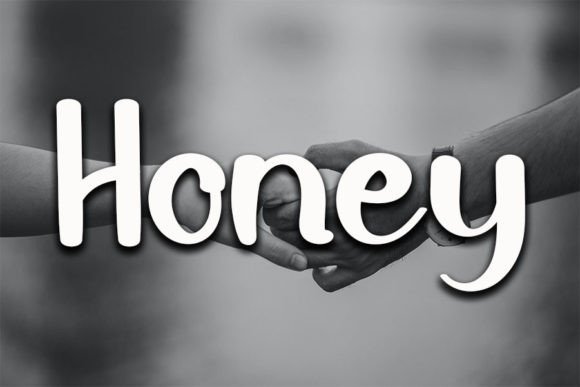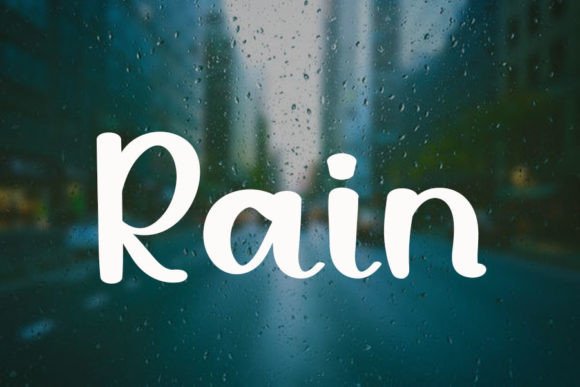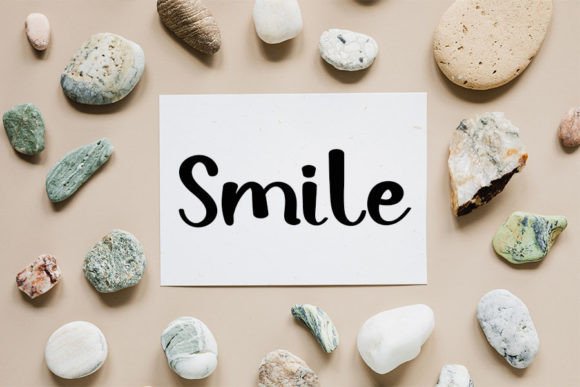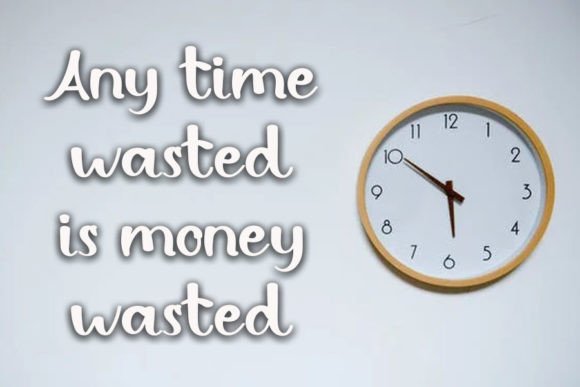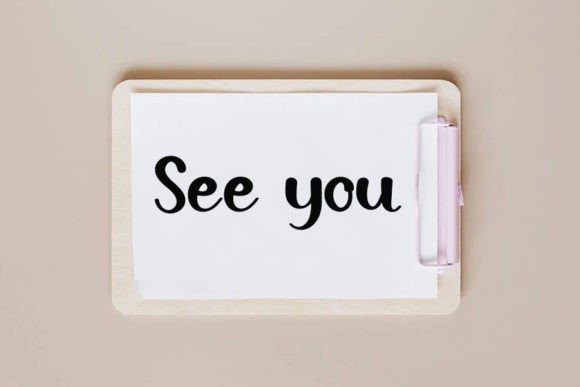
Baby Font: The Magical Handwritten Font for Elegant Designs
Are you a designer or crafter looking for a unique and elegant font to elevate your creative projects? Look no further than Baby Font, a magical handwritten font that combines cleanliness and quirkiness. In this article, we’ll dive into the world of Baby Font, exploring its features, benefits, and uses, as well as provide tips on how to make the most of this versatile font.
What is Baby Font?
Baby Font is a carefully crafted handwritten font that exudes elegance and sophistication. Its clean lines and subtle quirks make it the perfect fit for a wide range of design projects, from logos and branding to social media graphics and crafty DIY projects. Whether you’re a professional designer or a DIY enthusiast, Baby Font is sure to captivate your audience with its unique charm.
Key Features of Baby Font
- Magical Handwritten Style: Baby Font boasts a beautiful, handwritten style that’s perfect for creating personalized and eye-catching designs.
- Elegant and Clean: The font’s clean lines and elegant curves make it suitable for a wide range of design applications, from formal to informal.
- Quirky and Unique: Baby Font’s subtle quirks and imperfections add a touch of whimsy and personality to your designs.
- Highly Versatile: This font is perfect for various design projects, including logos, branding, social media graphics, and crafty DIY projects.
Benefits of Using Baby Font
So, why choose Baby Font for your design projects? Here are just a few benefits of using this amazing font:
- Stand Out from the Crowd: Baby Font’s unique style ensures that your designs will stand out from the competition and capture your audience’s attention.
- Easy to Read: The font’s clean lines and clear typography make it easy to read, even at small sizes.
- Customizable: Baby Font is highly customizable, allowing you to adjust the font size, color, and style to suit your design needs.
- Time-Saving: With Baby Font, you can create professional-looking designs in no time, saving you time and effort.
Using Baby Font in Design Projects
So, how can you use Baby Font in your design projects? Here are a few ideas to get you started:
- Logos and Branding: Use Baby Font to create a unique and memorable logo that reflects your brand’s personality.
- Social Media Graphics: Add a touch of elegance and whimsy to your social media graphics, including Facebook posts, Instagram stories, and Twitter headers.
- Crafty DIY Projects: Use Baby Font to add a personal touch to your crafty DIY projects, such as handmade cards, gift tags, and scrapbook pages.
- Wedding and Party Decor: Baby Font is perfect for creating beautiful wedding and party decor, including invitations, place cards, and banners.
Tips for Getting the Most out of Baby Font
To make the most of Baby Font, here are a few tips to keep in mind: